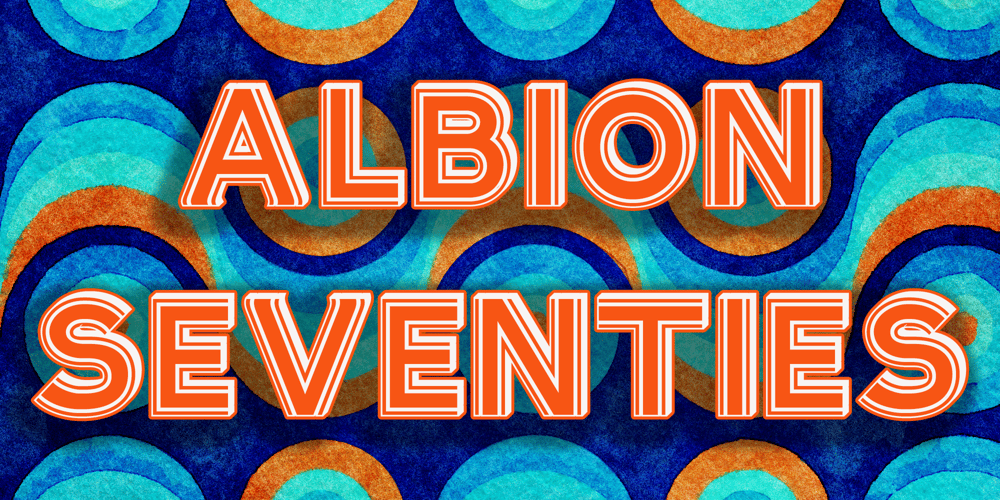
Albion Seventies Font Family was designed by Paul James Lloyd and published by Greater Albion Typefounders. Albion Seventies contains 1 styles and family package options. Albion Seventies is a display typeface from that fun era of psychedelic wallpaper, bright colours and bright orange everything! It’s a splendid face for posters and banners, and did we mention, it works really well with orange backgrounds?